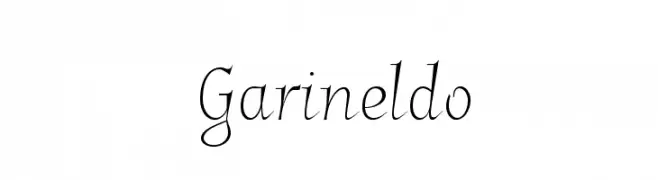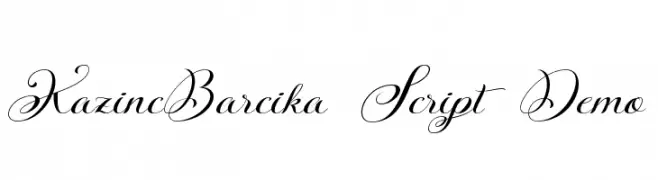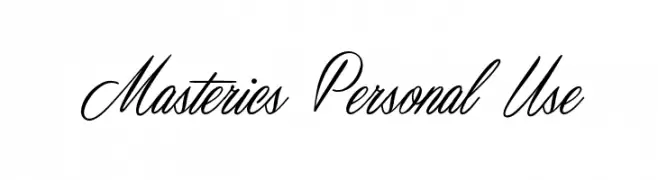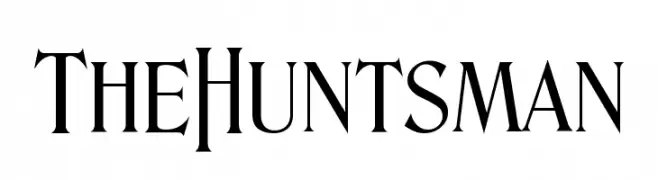
An elegant script font with flowing, cursive lines and ornate details.
A classic serif font with sharp serifs and high contrast, ideal for elegant designs.
An elegant script font with graceful curves and decorative flourishes.
An elegant script font with intricate swashes and high contrast, perfect for formal designs.
An elegant script font with flowing, cursive letters and high contrast strokes.